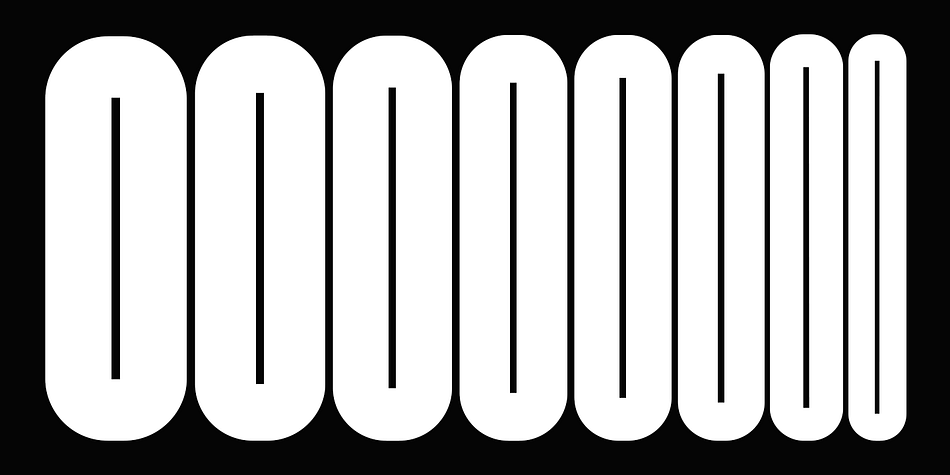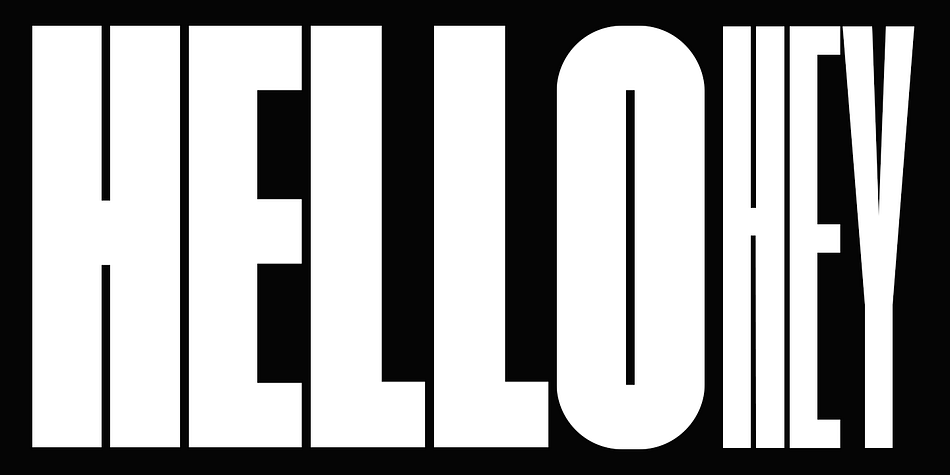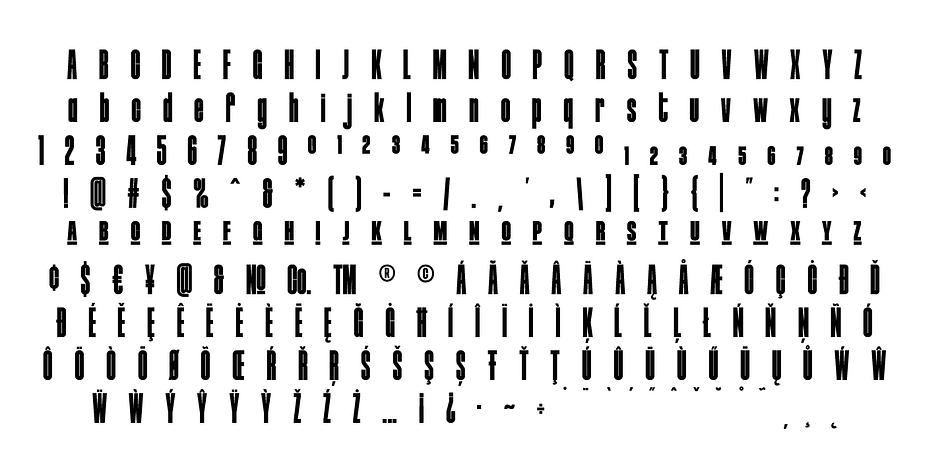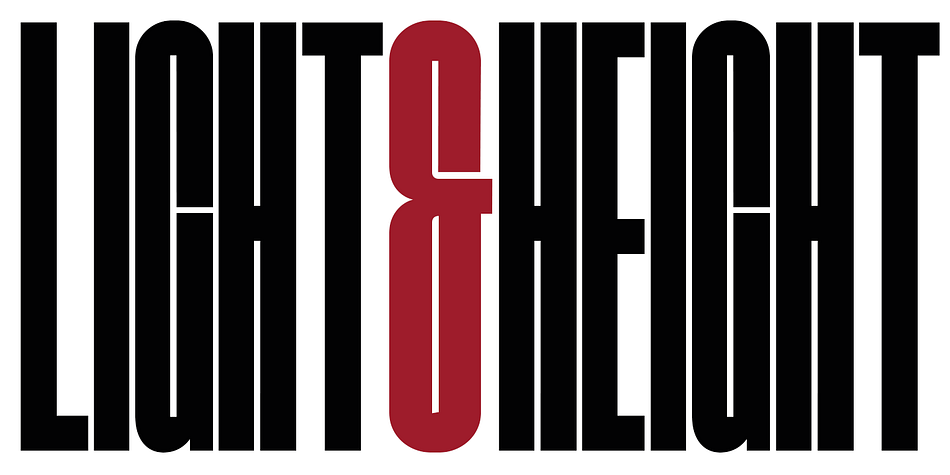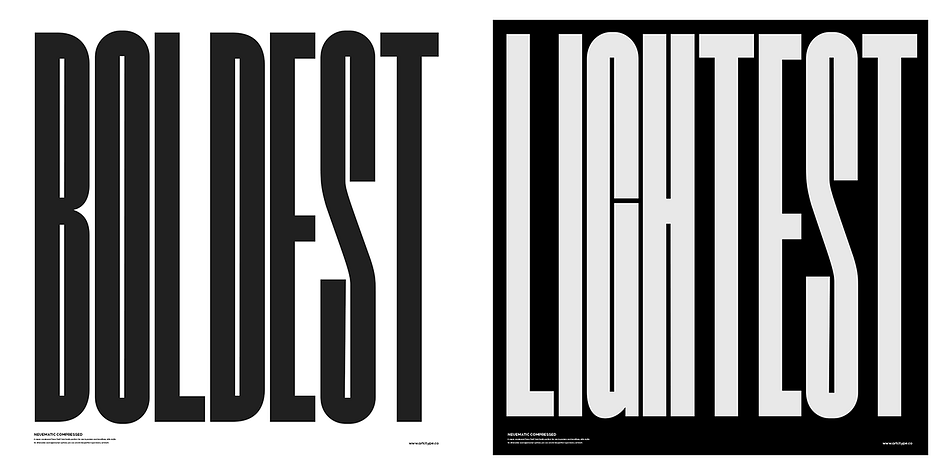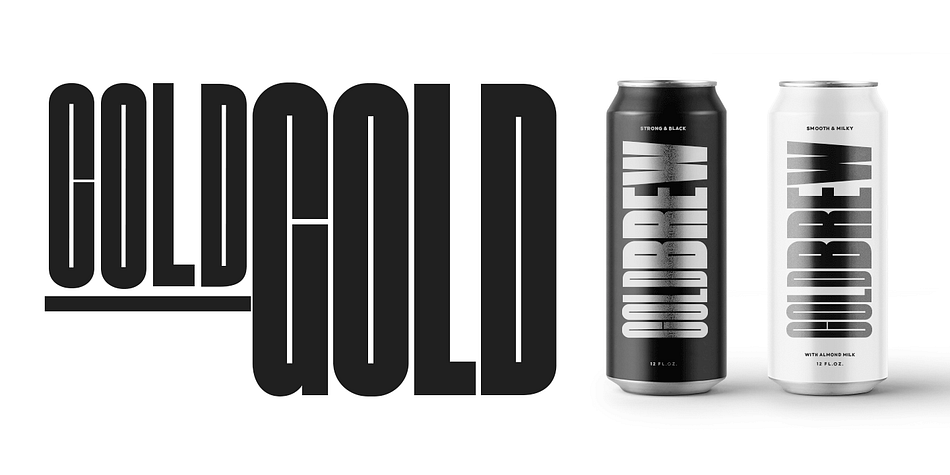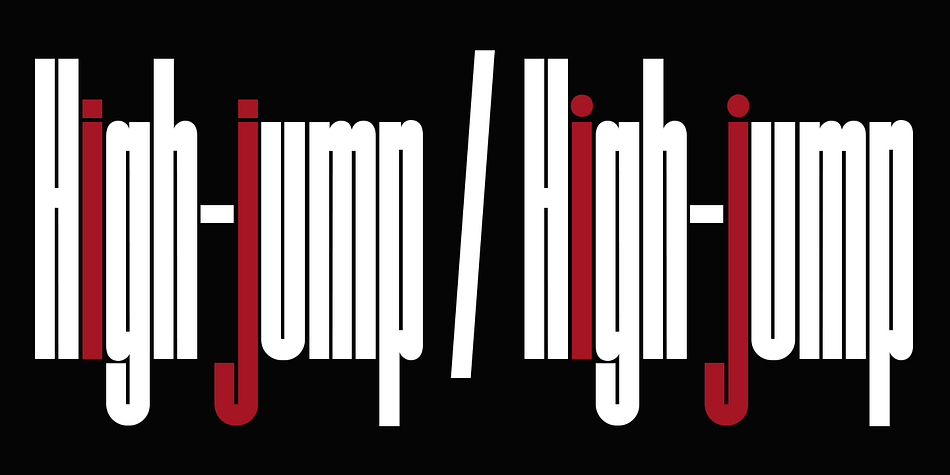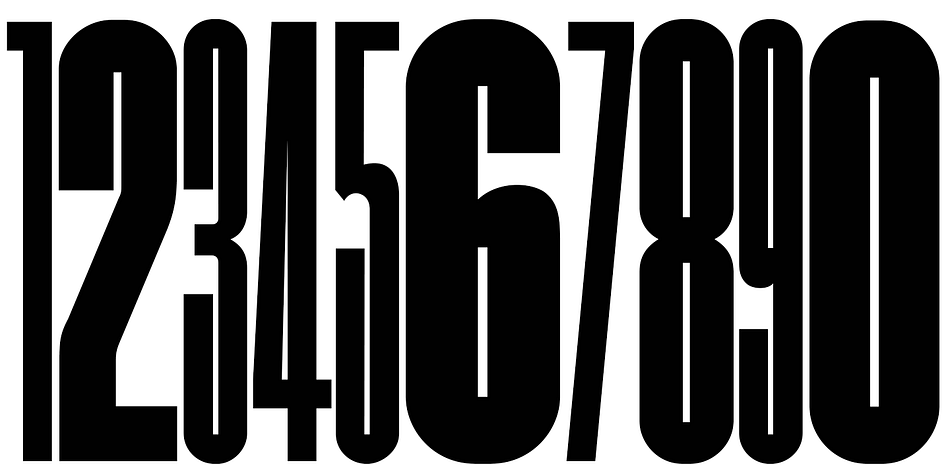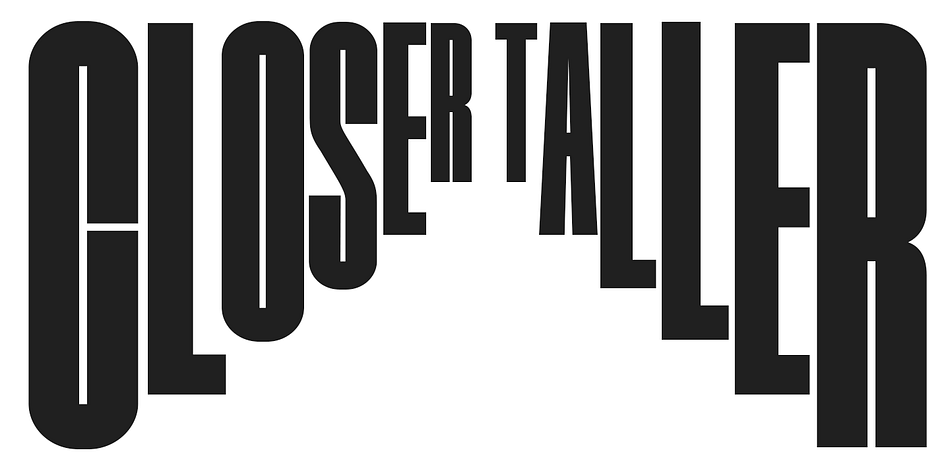
Designed by Andrew Footit, Neumatic Compressed is a display sans and sans serif font family. This typeface has eight styles and was published by Andrew Footit.
Neumatic compressed has a super compressed character set, increased cap height and tight kerning that combine to give you the ability to create large, beautiful and effective headlines and copy for your artwork. Neumatic Compressed packs punch when it comes to large copy lines and is perfect for posters, display copy, headlines in printed materials like magazines and books . The family comes in 8 weights from extra light to Black so it’s versatile.
Its extra light weight can give you some great height due to how narrow it is. Play around with the opentype Superscript with an underline or the Opentype stylistic sets which turns the default squared dots on i’s, j’s and punctuation to round dots.